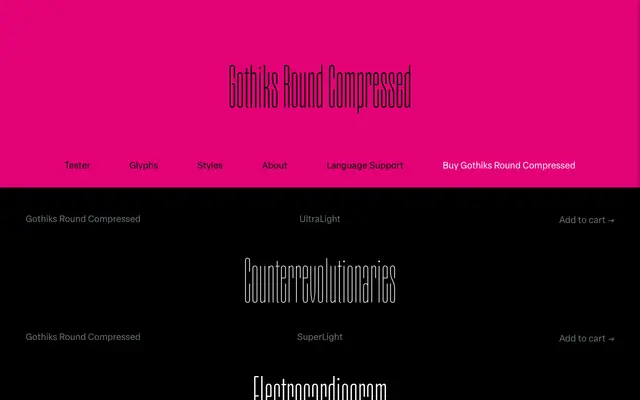
Gothiks Round Compressed
A compressed, rounded grotesque from Daniel Sabino, offering six weights within the wider Gothiks family system.
The rounded variant of Gothiks Compressed, sharing the same narrow proportions but with softened terminals that give it a warmer character than its sharper sibling. Six weights run from UltraLight to Black, covering a broad range of display and headline use cases. Extended Latin language support spans hundreds of languages, making it practical for multilingual projects.
A compressed grotesque sans with rounded terminals, part of the broader Gothiks family. The rounded treatment softens the compressed forms without departing from the grotesque genre.